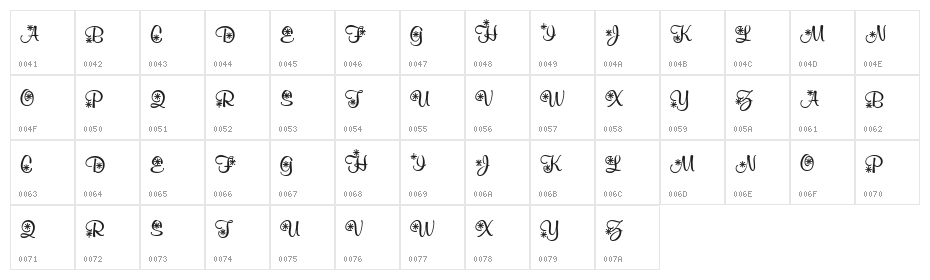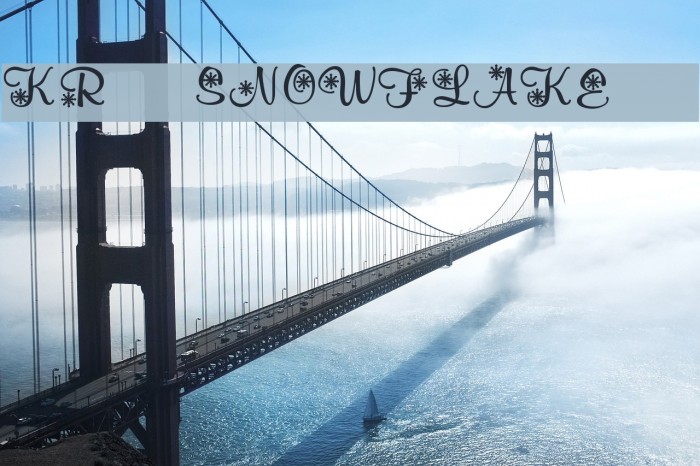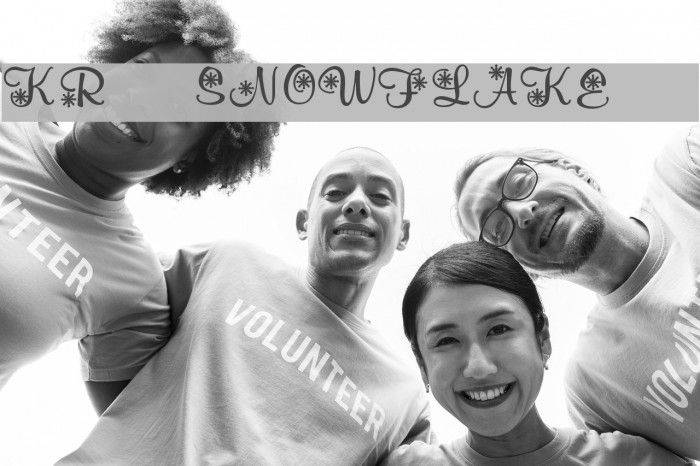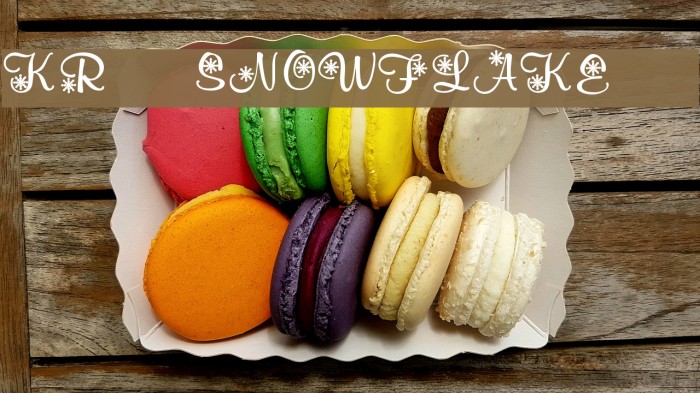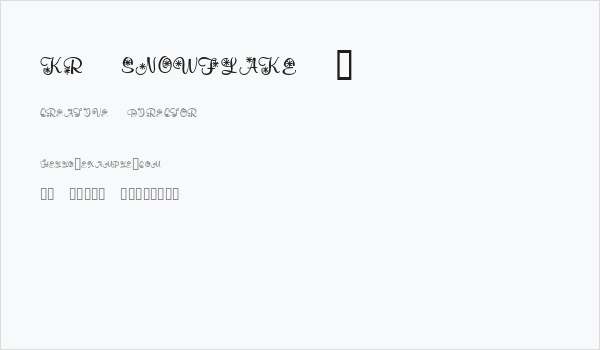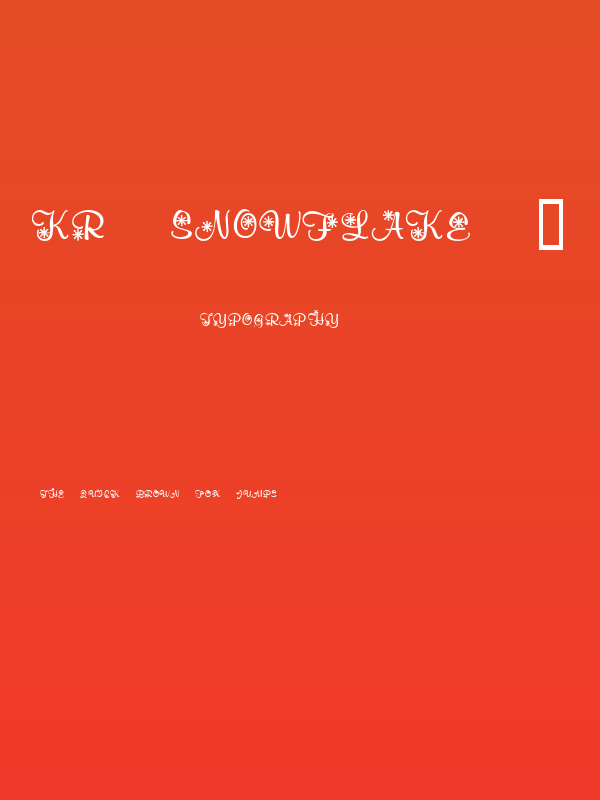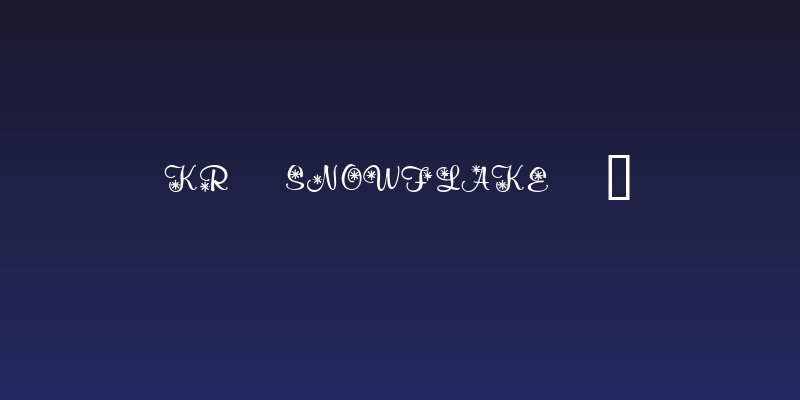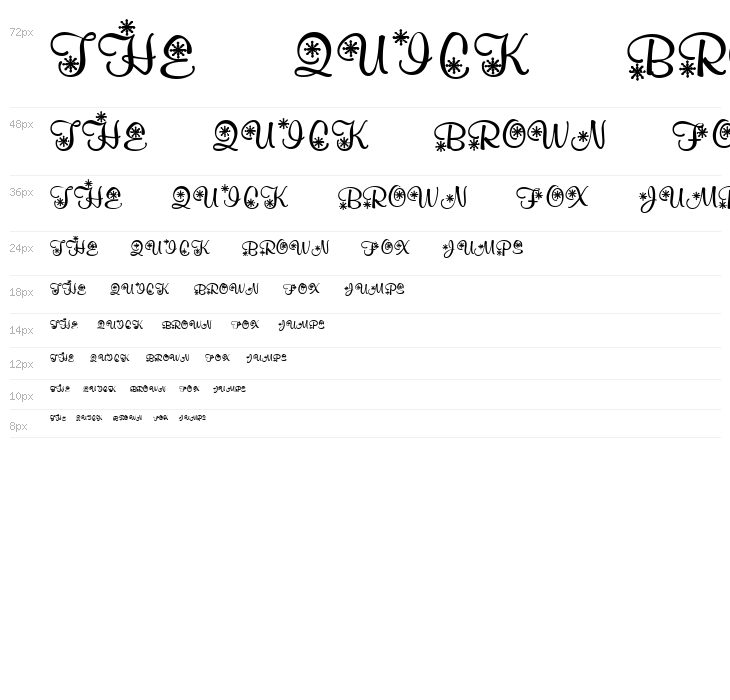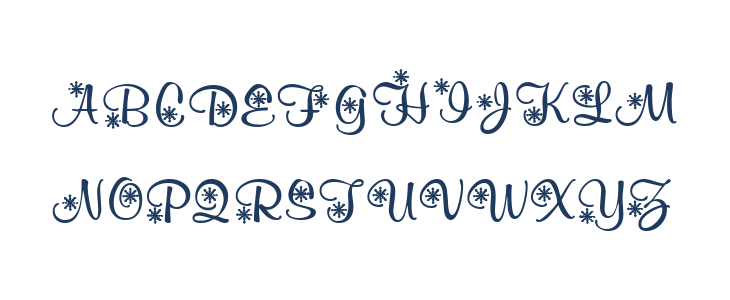
KR Snowflake 2 Font
KR Snowflake 2 Description
This decorative font features an intricate design with snowflake motifs embedded within each character, creating a festive and whimsical appearance. The letters are bold and curvaceous, with a playful yet elegant style that captures attention. The snowflakes are seamlessly integrated into the strokes, adding a unique touch that makes the font stand out. This font is perfect for holiday-themed projects, offering a blend of creativity and sophistication. The overall design is balanced, with consistent spacing and alignment, ensuring readability while maintaining its decorative appeal.
| Use Case | Headlines, Logos, Decorative text |
| Proposed Projects | Ideal for holiday cards, festive invitations, winter-themed posters, and decorative signage. |